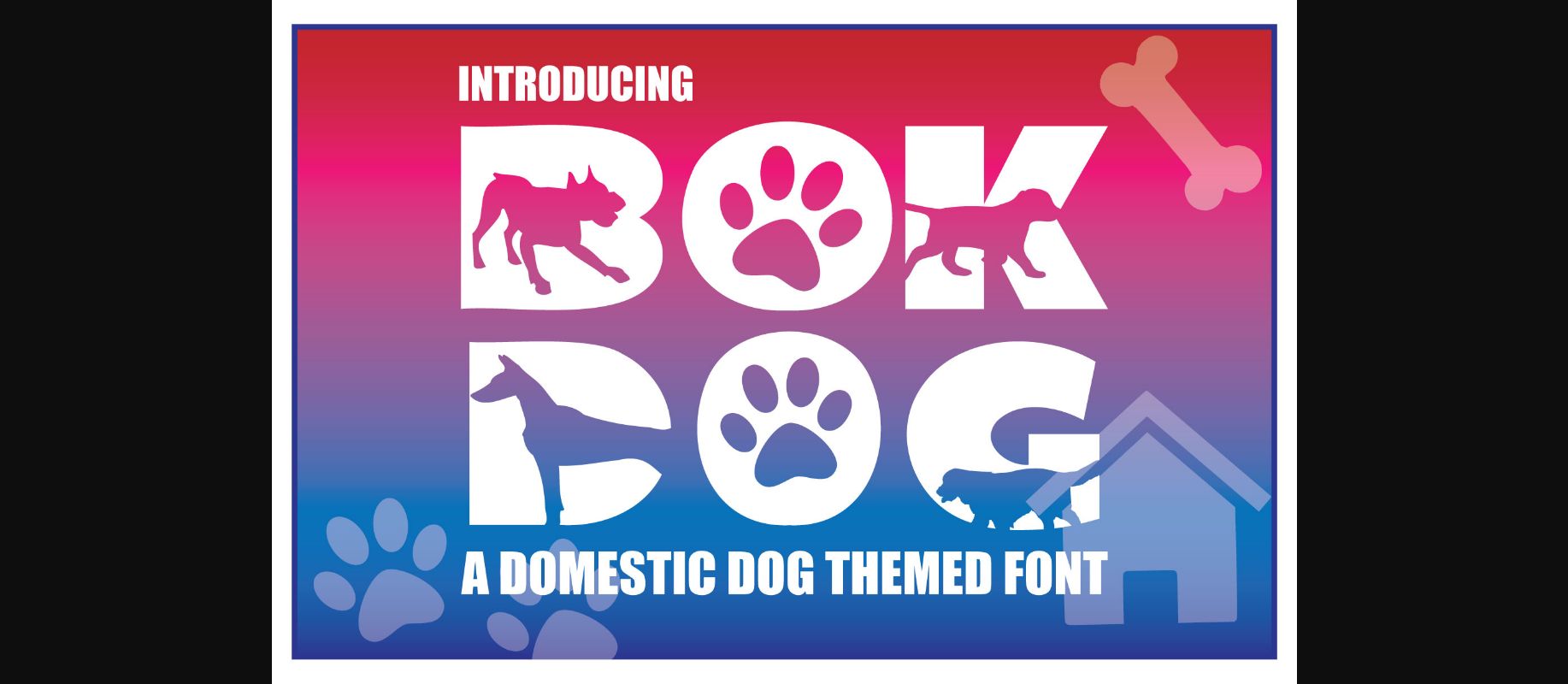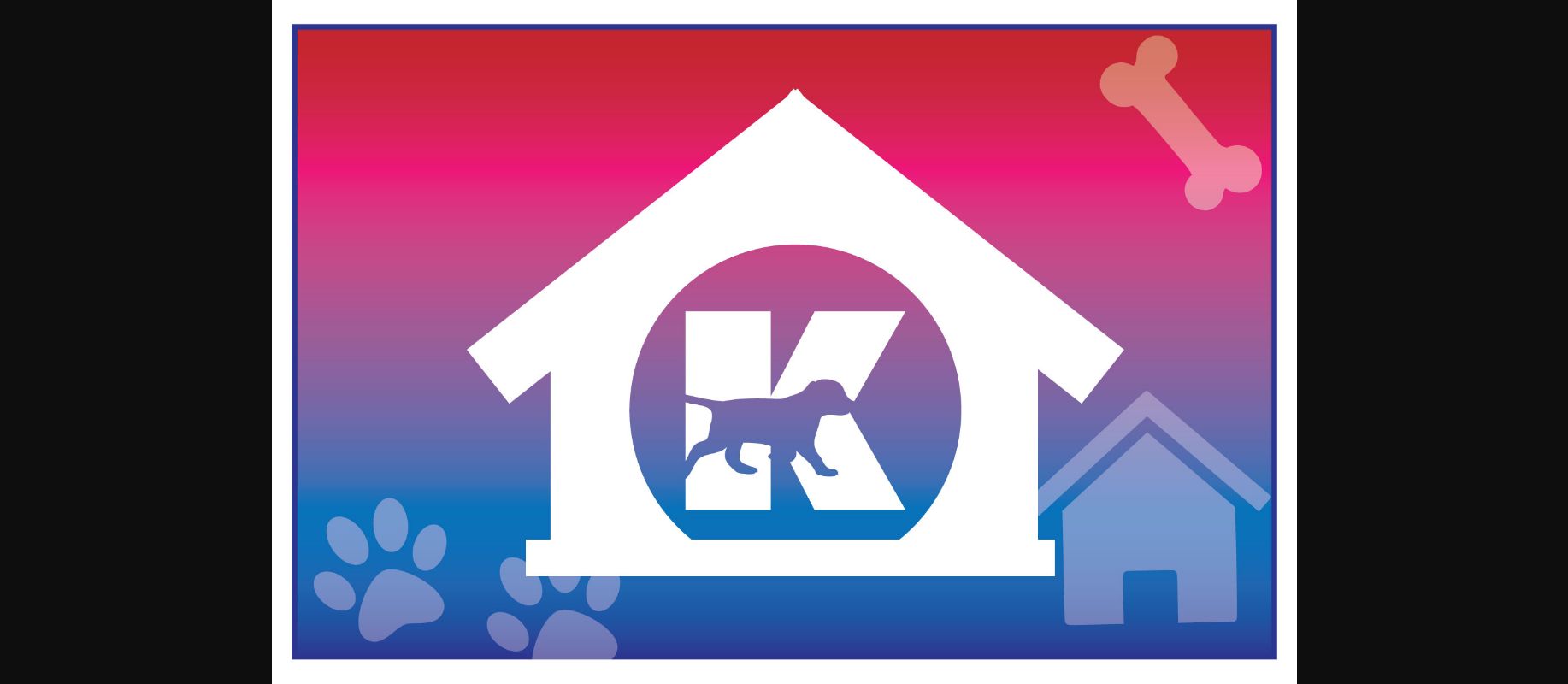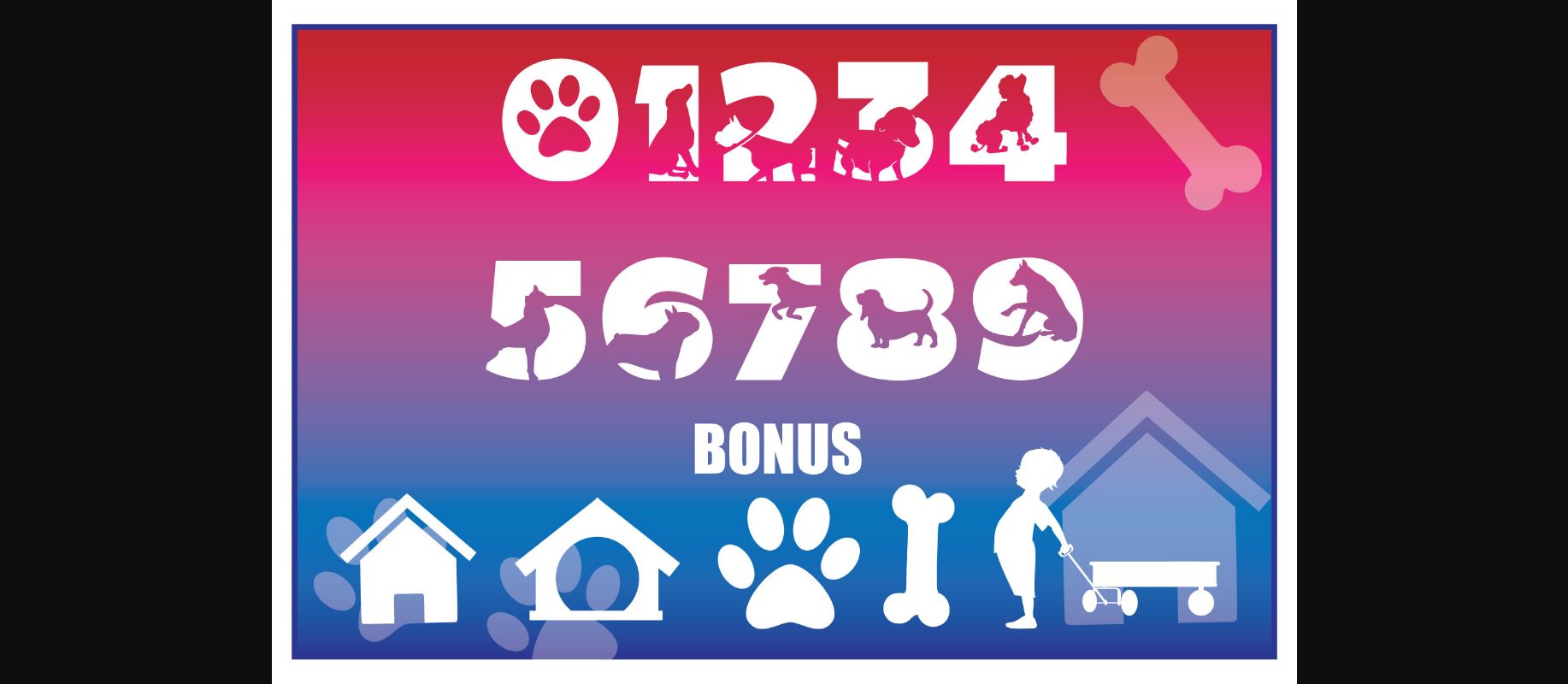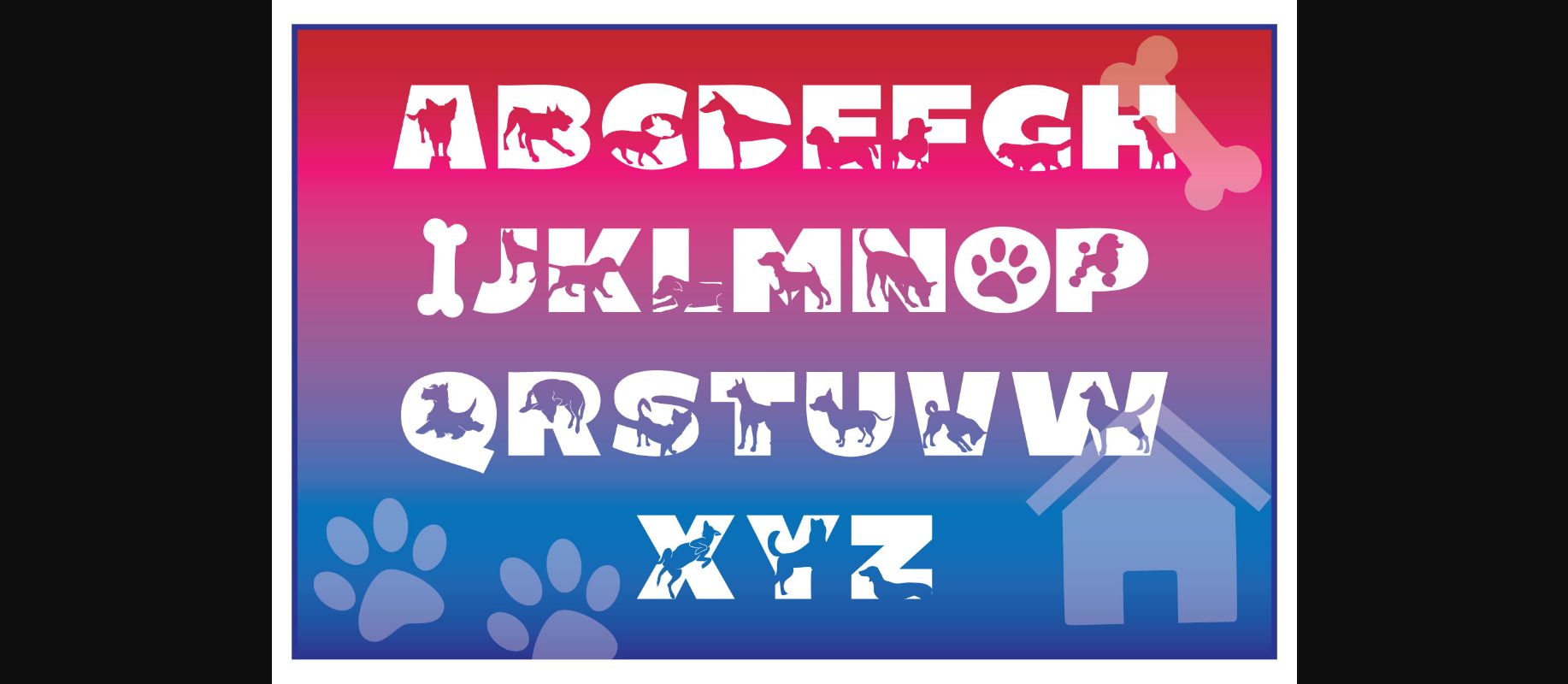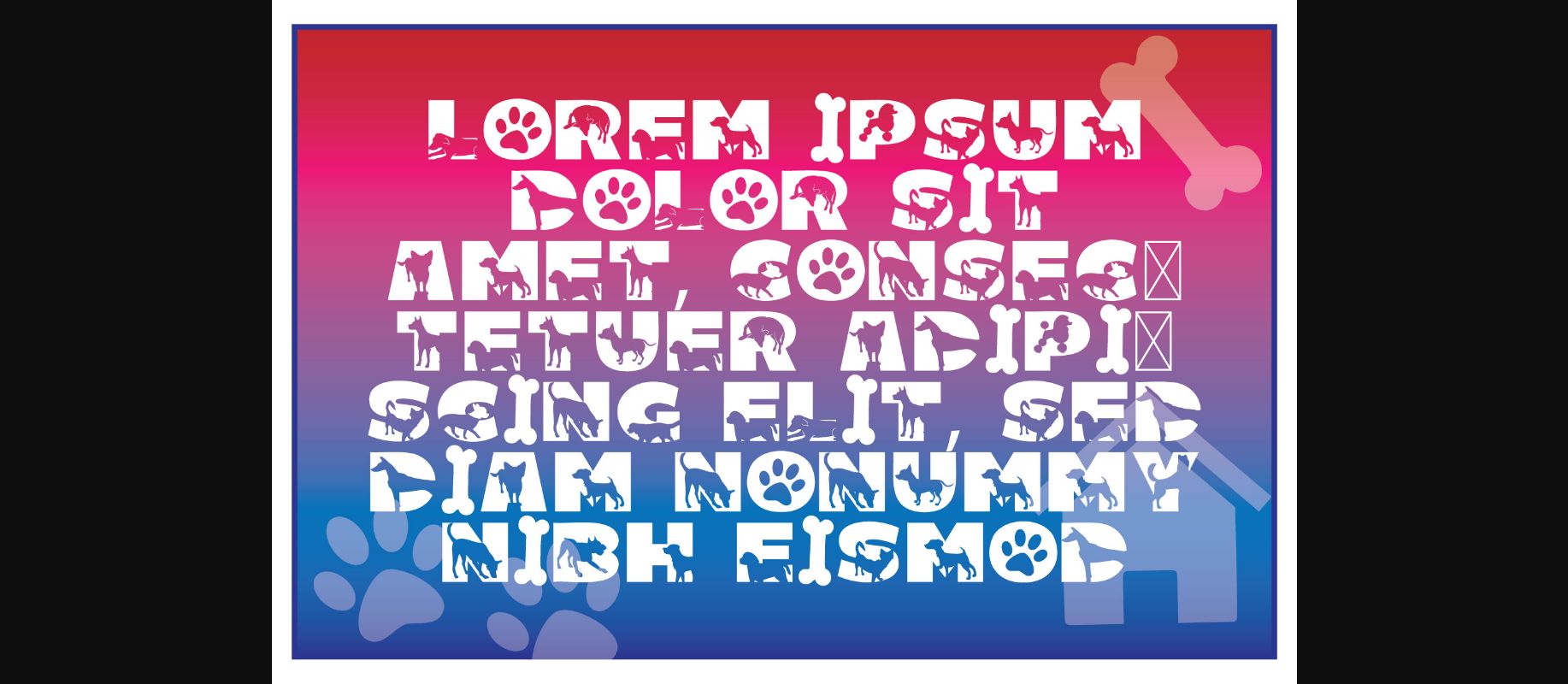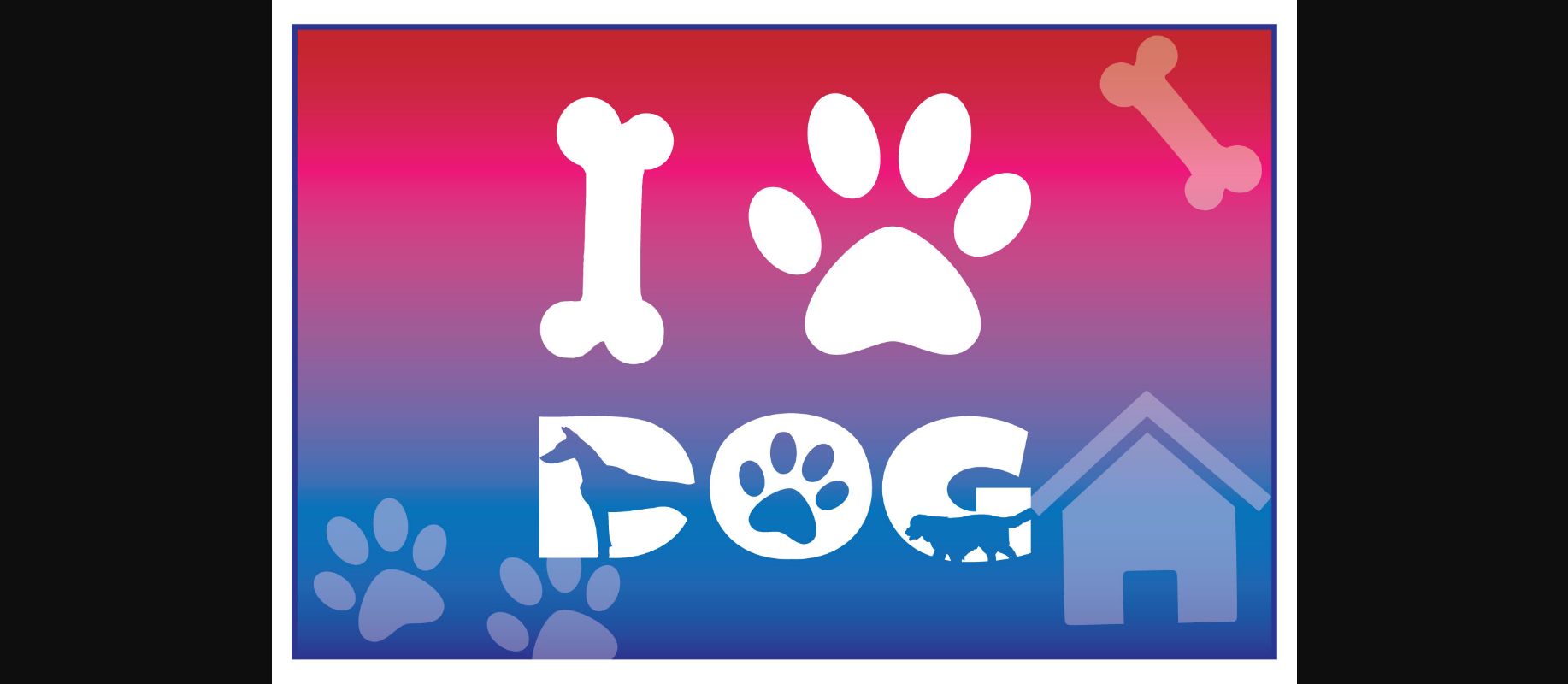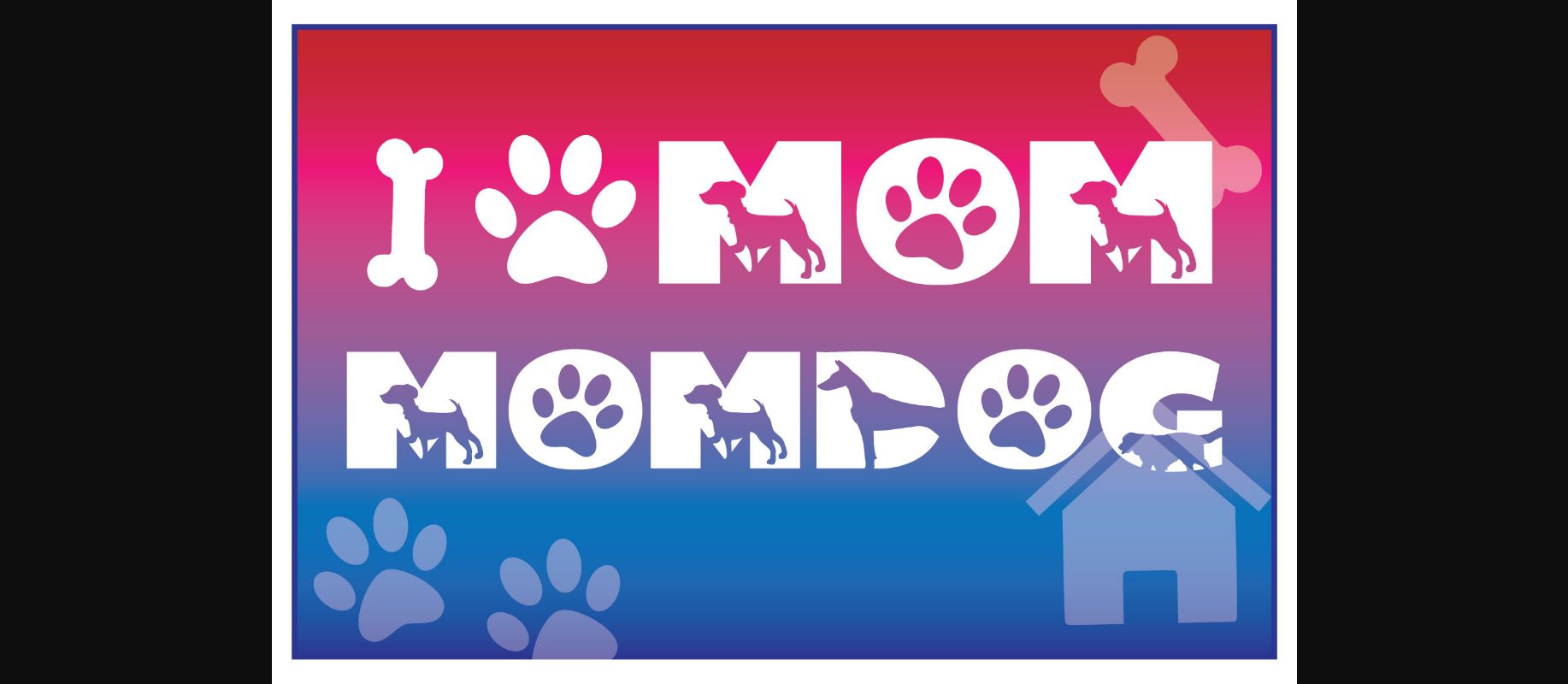
Bok Dog Font
About Bok Dog Font
Bok Dog is a cool, thick lettered and friendly decorative font. No matter the topic, this font will be an incredibly asset to your fonts’ library, as it has the potential to elevate any creation.